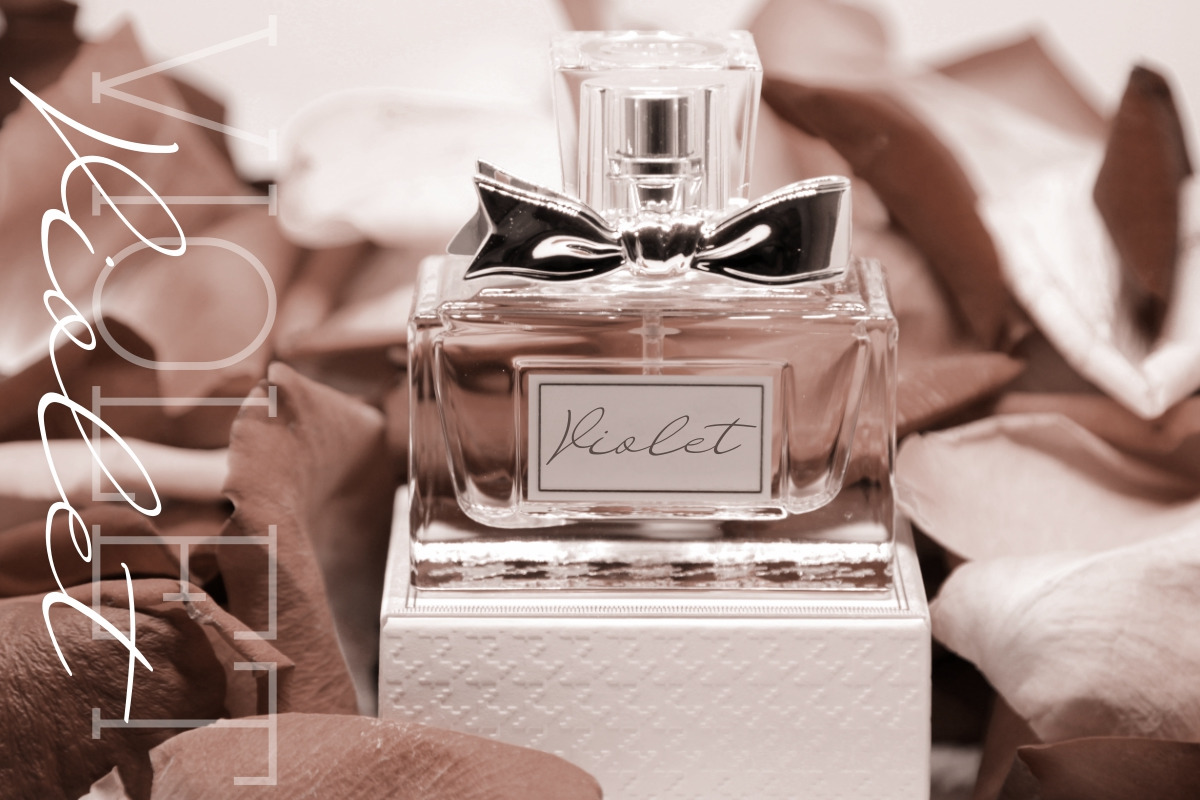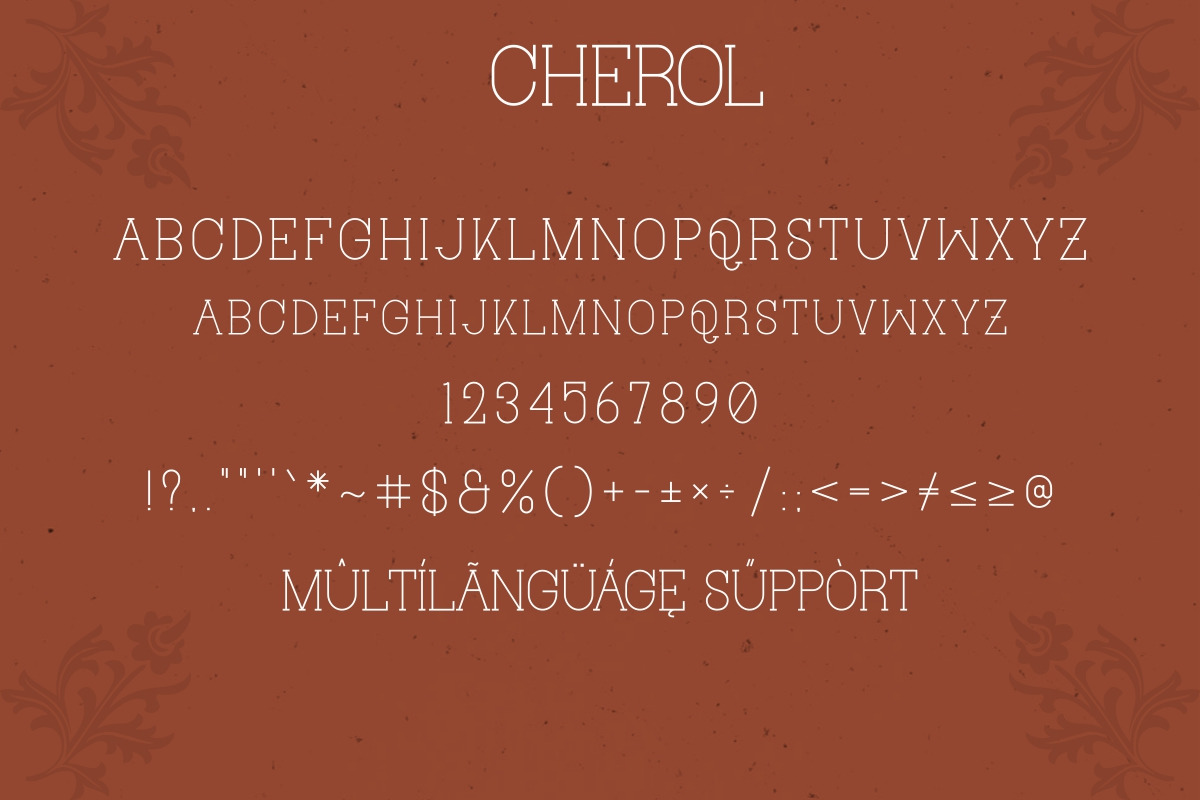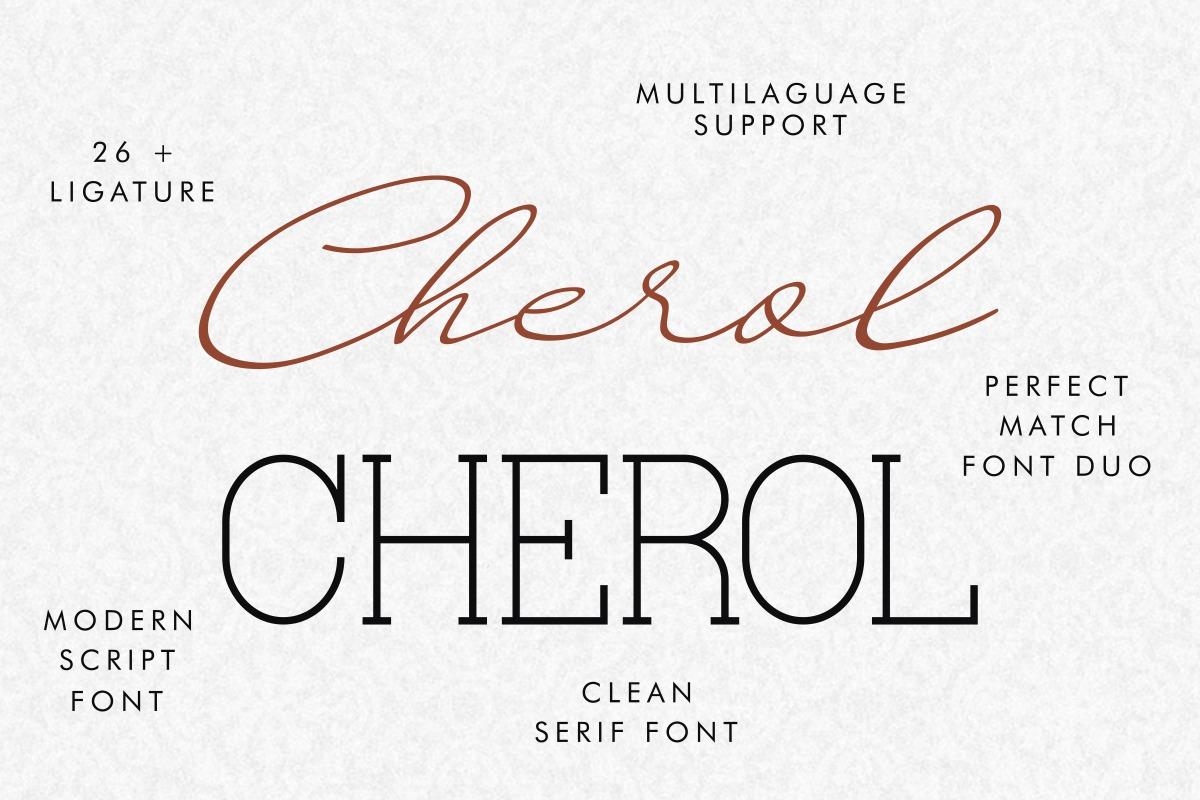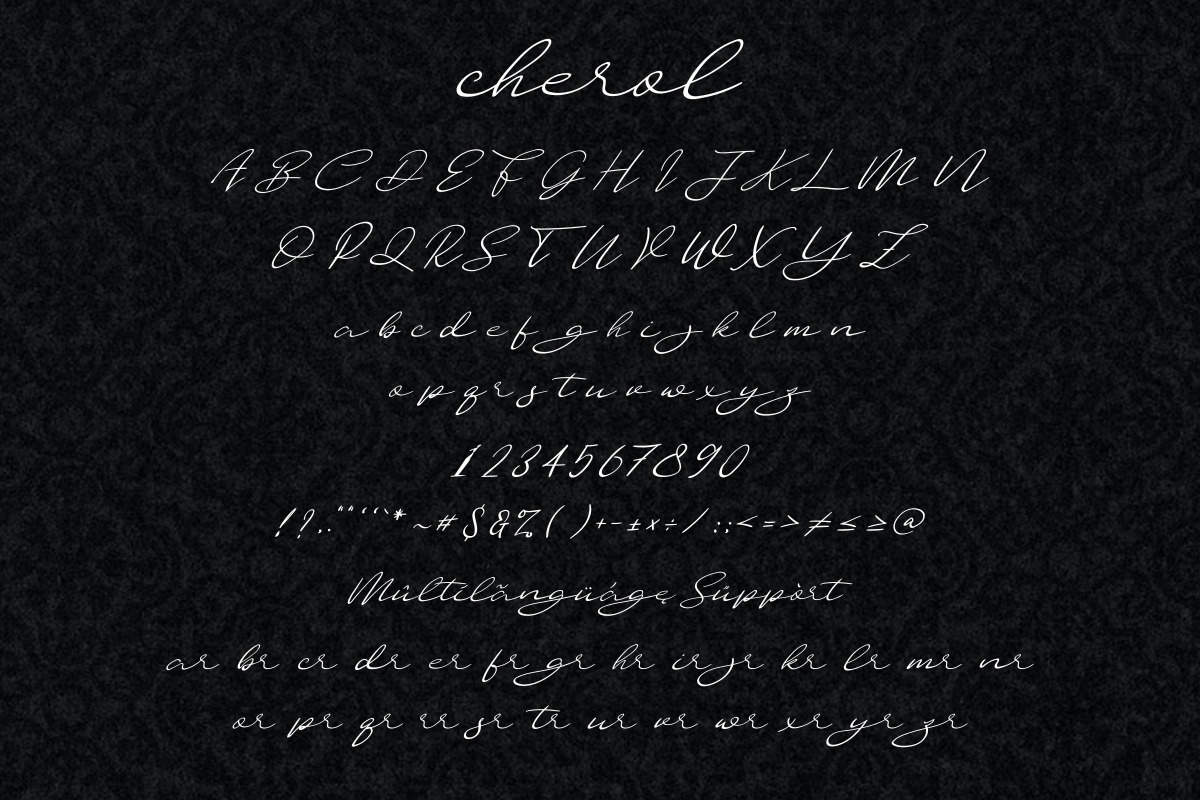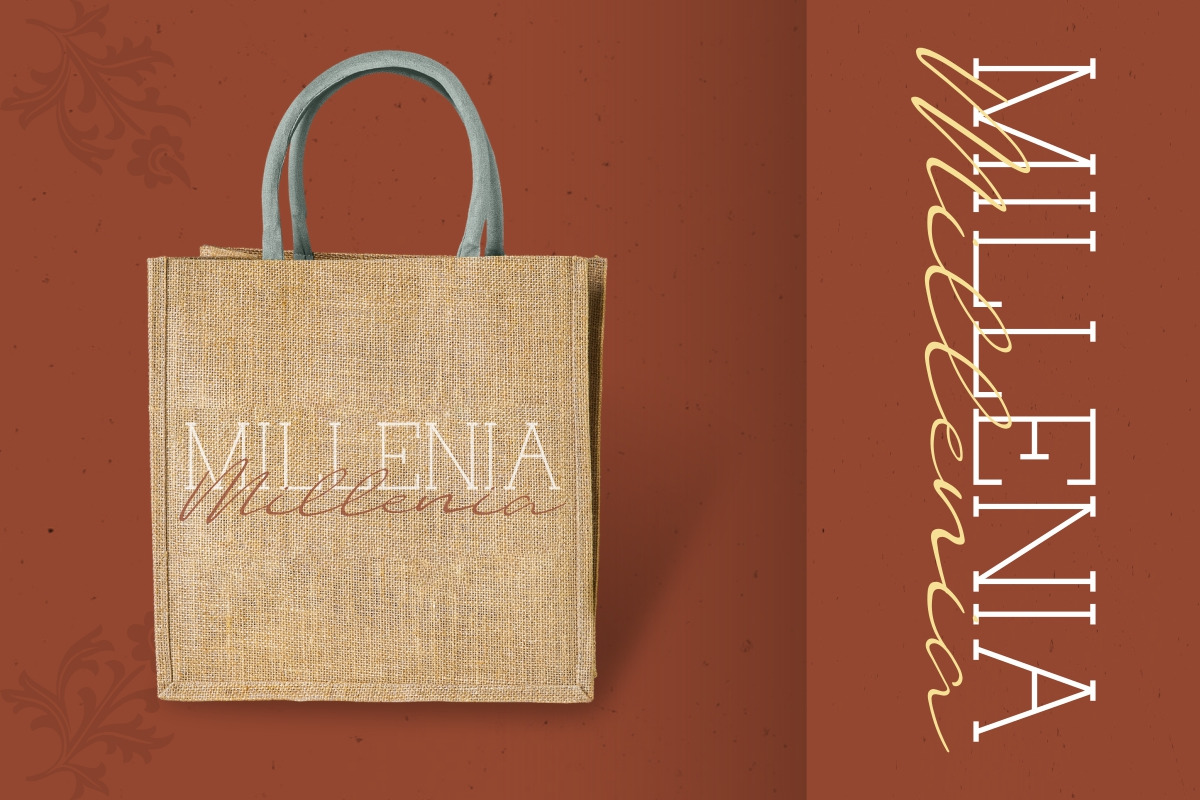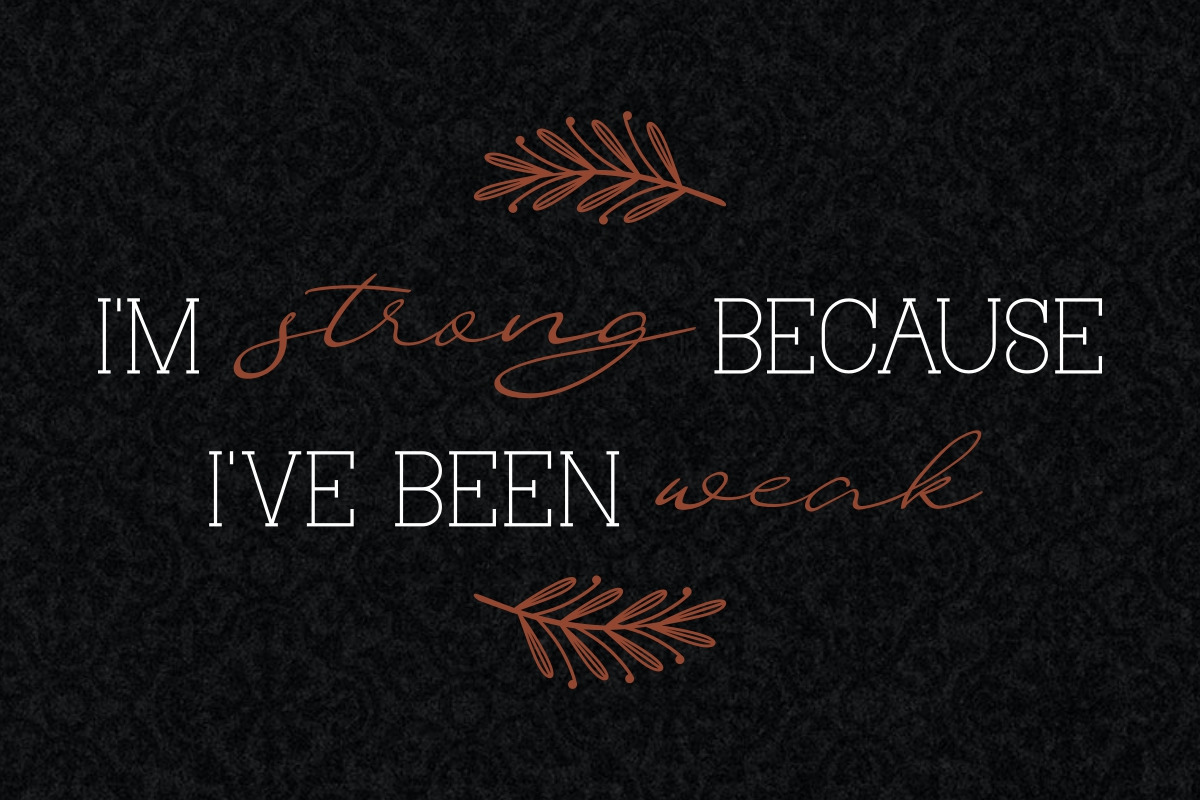
CHEROL Font
The CHEROL font is a font duo in which the CHEROL Font has two different styles: Serif Display and Signature Script. The font was handcrafted for any your special projects including : headlines, promotion, events, branding, advertising, magazine, signage, invitation, stationery, social media posts, label, or and any projects that need unique strong style.